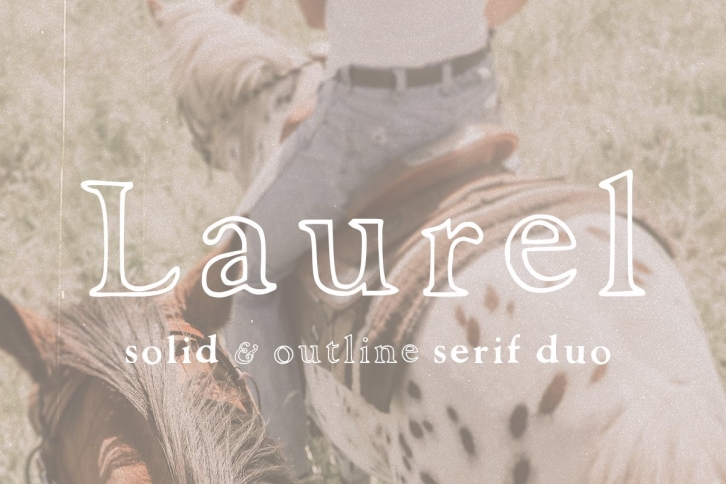
Meet Laurel - an airy, hand-crafted, outline & solid serif duo. Numbers and Punctuation are included as well as both lowercase and capital letters. It's cleaned up and respectable, but with some laid-back hand drawn appeal, perfect for those spring/summer projects. Add some one of a kind details without the fuss of drawing all of the letters (I did that part already). Enjoy!
- Laurel Regular & Laurel Outline fonts
- Numbers, Punctuation, Lowercase & Capital letters